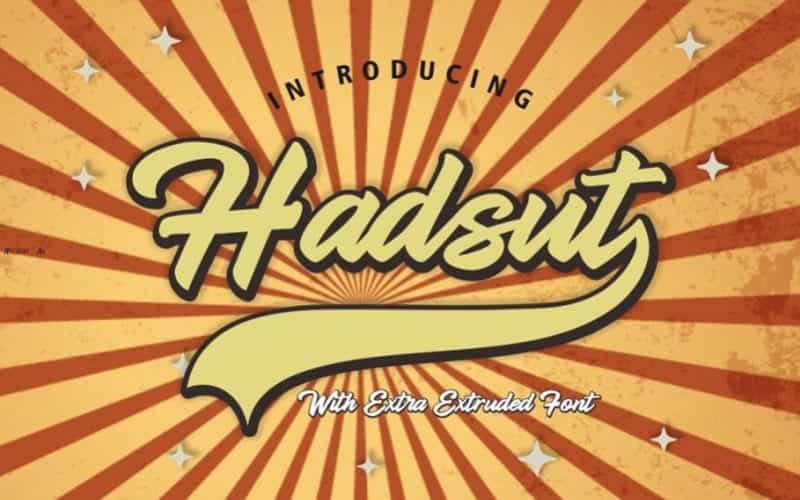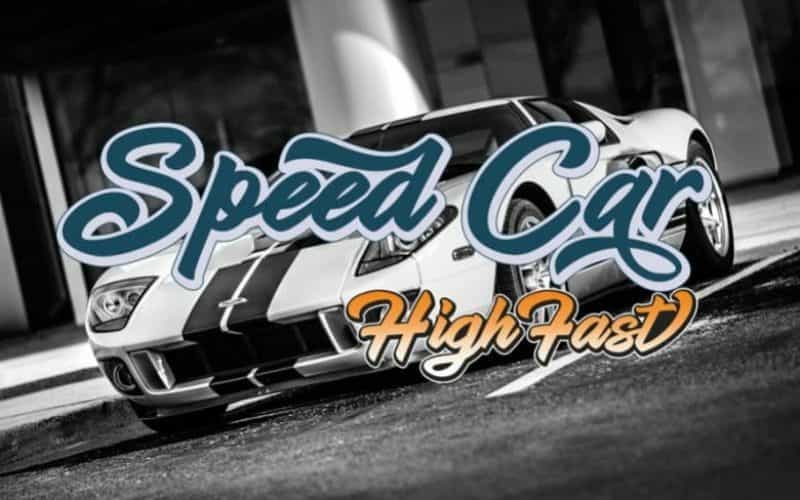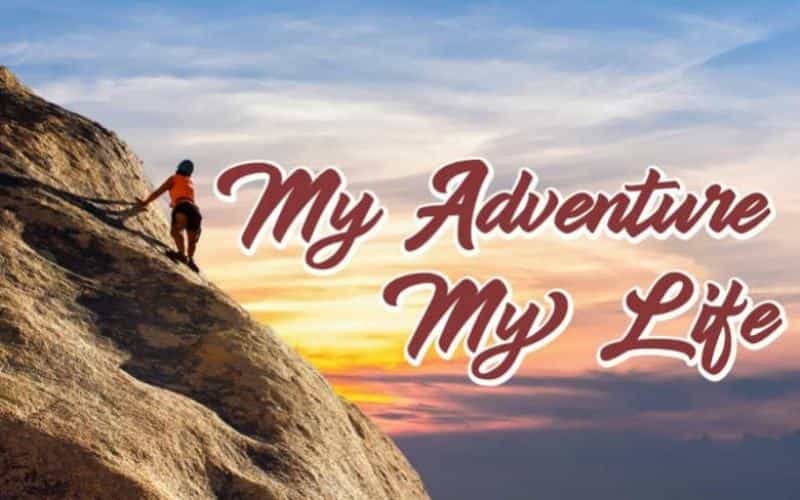
Introducing, Hadsut Is a Beautiful font of retro typeface give your typography design a touch of retro style with the cute Hadsut, Hadsut is one of hand lettering project. It was very inspired from the famous retro typography designs.